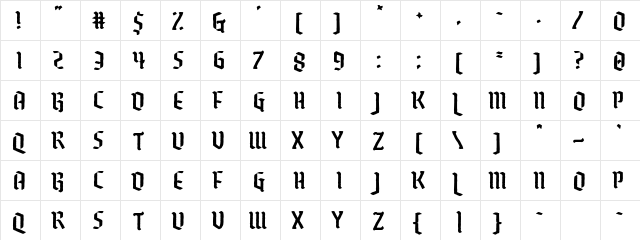
Romantic Chemicals Regular
| Designer | Allison James |
Design Context for Romantic Chemicals Typeface
Romantic Chemicals is a composed and adaptable typeface that performs quietly and consistently across a wide range of design contexts.